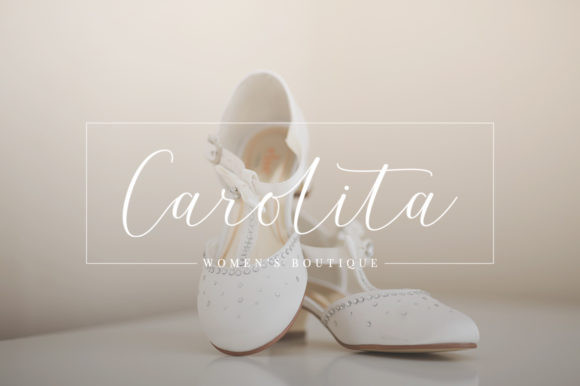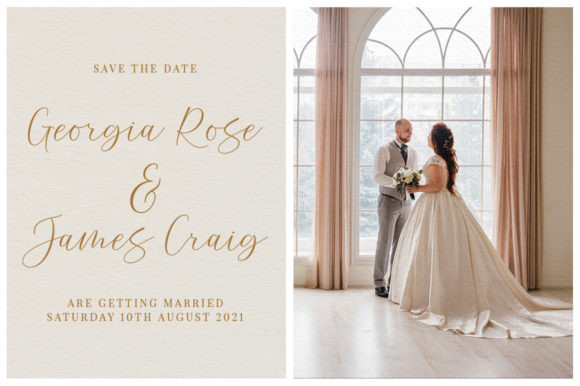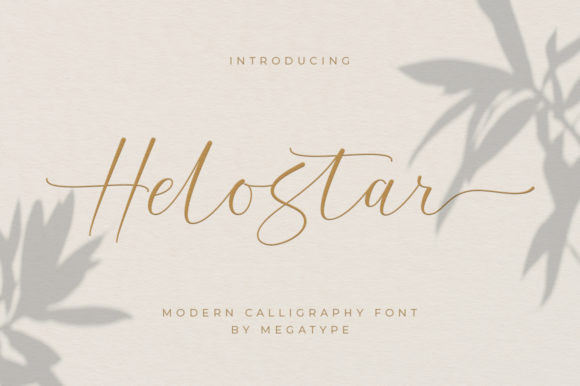
Helostar Font
Helostar is a modern calligraphy font that features a varying baseline and elegant touch. It is perfectly suited for a wide variety of projects!